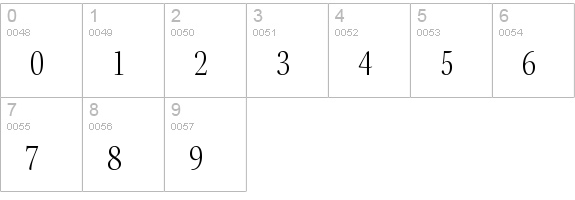
Kepler Std Light Condensed Subhead Font Details
Kepler Std Light Condensed Subhead is a refined, elegant, condensed-width variant in the Kepler typeface family \xE2\x80\x94 well suited to elegant body text, refined sub-headings, and luxury branding.
Introducing Kepler Std Light Condensed Subhead, a sleek and modern font that effortlessly adds sophistication and elegance to any design project. This versatile typeface features a condensed subhead style, making it perfect for creating eye-catching headings, subheadings, and titles. Designed with utmost precision and attention to detail, Kepler Std Light Condensed Subhead is the epitome of refined typography. Its clean lines and balanced letterforms exude a sense of professionalism and finesse, making it a top choice for designers and creatives alike. With its light weight, this font strikes the perfect balance between readability and impact. Whether used in print or digital media, Kepler Std Light Condensed Subhead seamlessly blends into any layout, enhancing the overall visual appeal and ensuring an exceptional user experience. What's even better is that Kepler Std Light Condensed Subhead is available for free download at FontsMarket.com. This means that designers can access this remarkable font without any cost, making it an absolute must-have for anyone seeking to elevate their design projects without breaking the bank. So, why wait? Experience the power of Kepler Std Light Condensed Subhead and take your designs to new heights. Download it for free today at FontsMarket.com and witness the transformative impact this font can have on your next project.